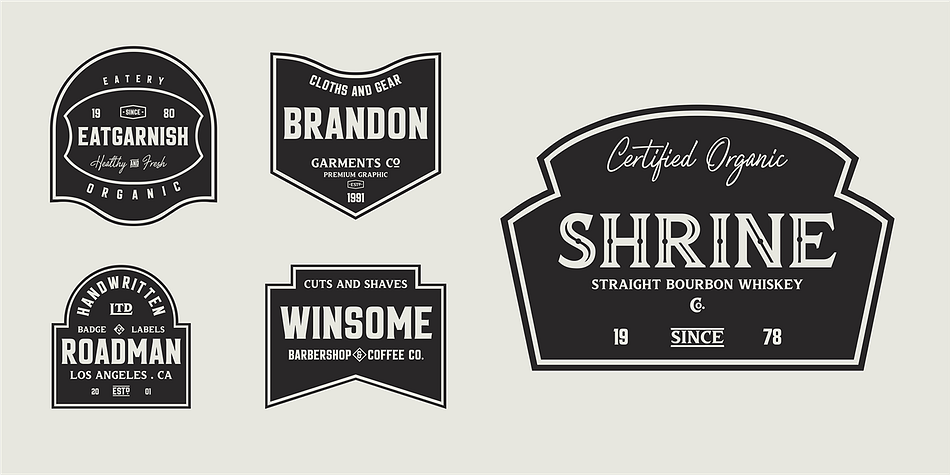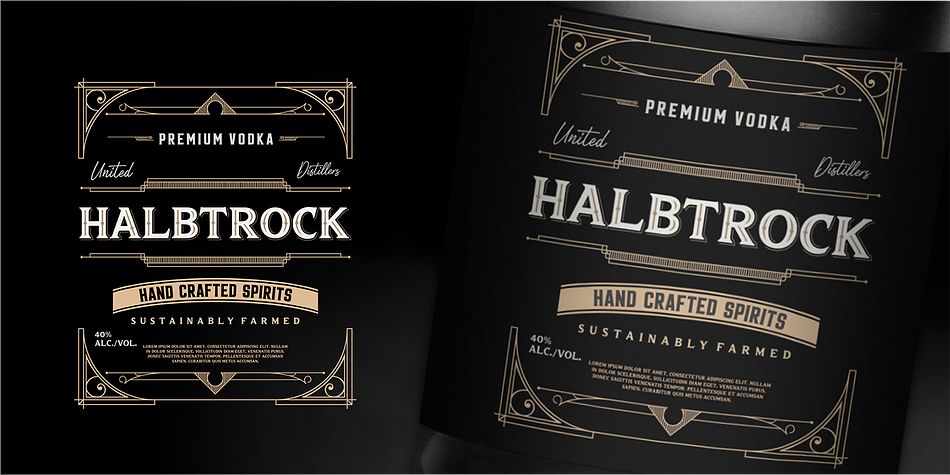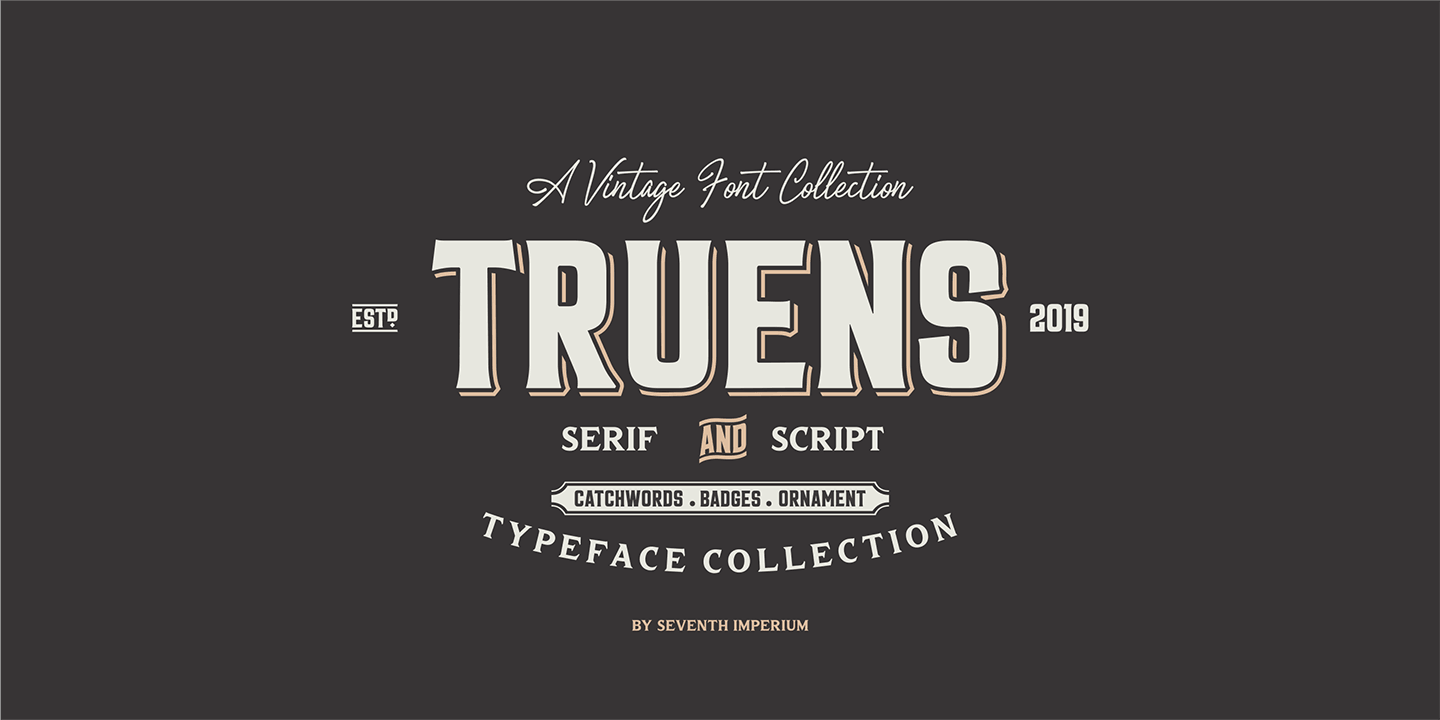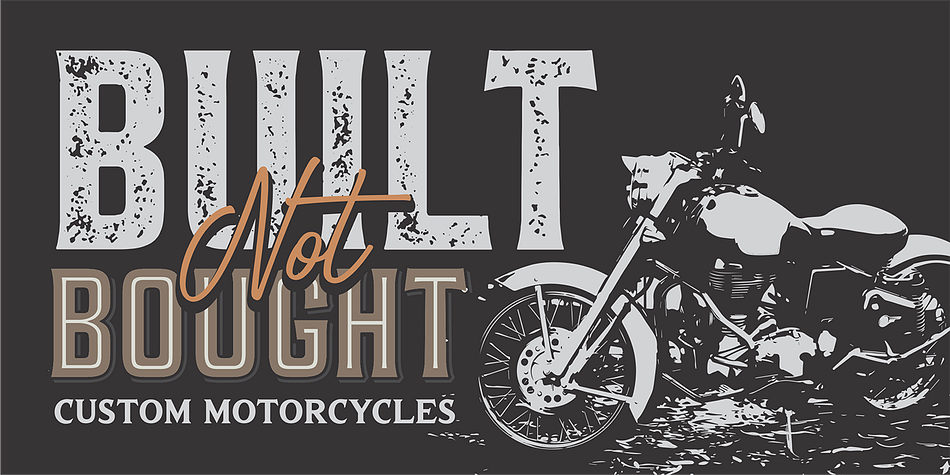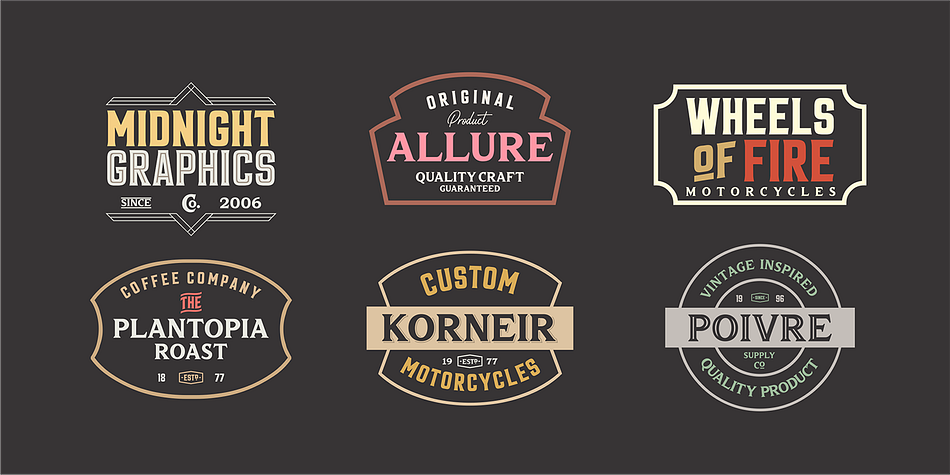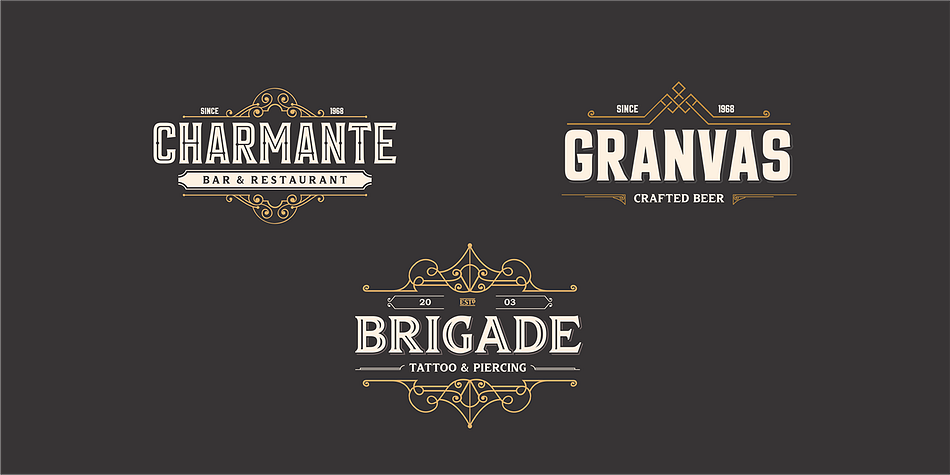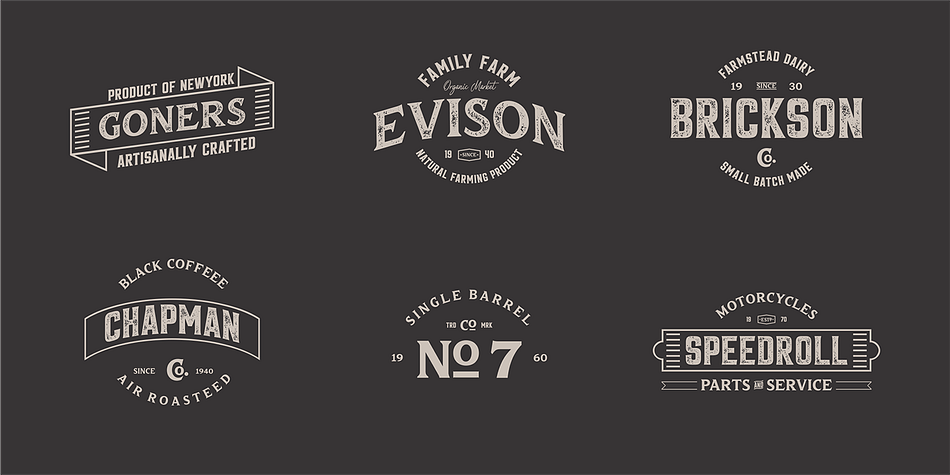
Designed by Cucu Supriyadi, Truens is a multiple classification font family. This typeface has twenty styles and was published by Seventh Imperium.
Truens is a vintage display typeface. It’s an all uppercase serif font collection with a Script font that was inspired by the look and feel of old serifs. Truens features include badges, ornaments, catchwords, and Multiple Language Support.
This fonts is very versatile, all the styles work well together and can look authentically vintage.